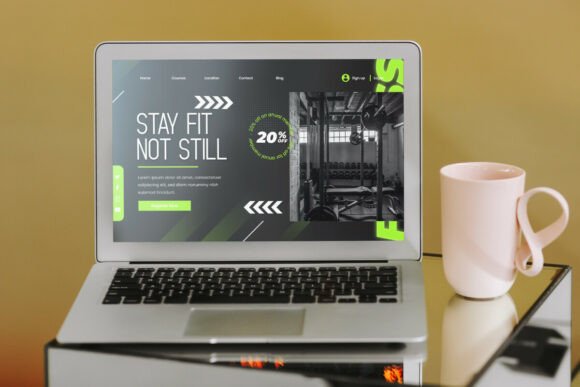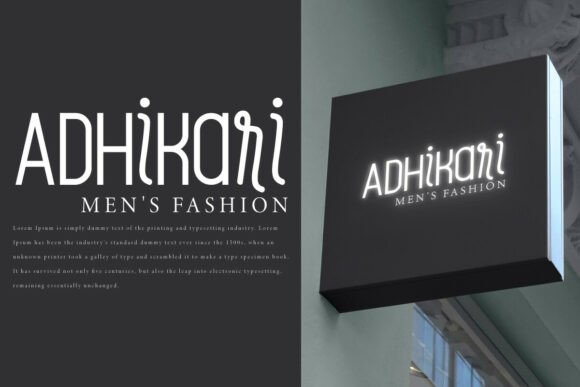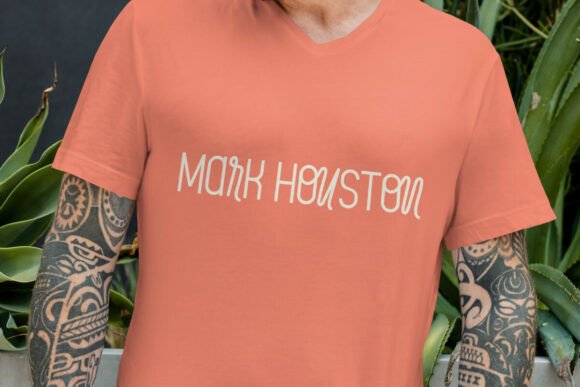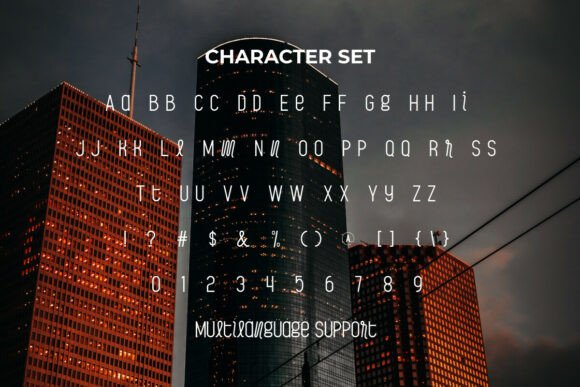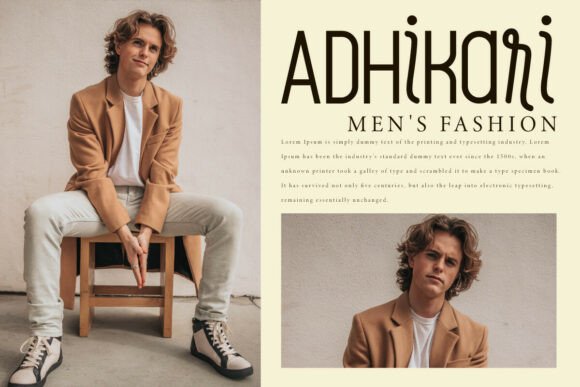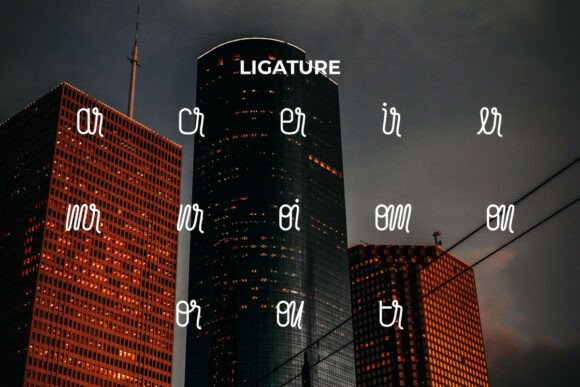
Introduction to Markhouston Font
The moment you need a font that elevates your creative project from ordinary to extraordinary – that’s when the search begins. You’re browsing through countless font options, trying to find the perfect combination of style and versatility. And then, you stumble upon it – Markhouston Font. This stylish duo display font is a game-changer, featuring two distinct styles within one cohesive font family. The clean sans serif and expressive handwritten design blend together seamlessly, adding a unique and modern touch to any project.
Whether you’re working on a brand identity, calendar, or product packaging, Markhouston Font is a valuable asset for designers. Its high-quality design makes it a great fit for various industries, from fashion and advertising to events and accessories. And the best part? It’s fully compatible with popular design software, including Adobe Illustrator, InDesign, and Photoshop.
Key Features of Markhouston Font
- High-quality design resource for creative projects, ideal for digital use.
- Unique characteristics include a modern, clean, and elegant design aesthetic, making it perfect for branding and marketing materials.
- Designed to be highly legible, with clear typography that ensures readability across various digital platforms.
Honest Review: Markhouston Font
As a designer, I’m always on the lookout for high-quality design resources to elevate my creative projects. Recently, I stumbled upon the Markhouston Font, and I’m excited to share my honest review with you.
Here’s what works well:
- ✨ Beautiful, modern design aesthetic that’s perfect for contemporary branding projects.
- ✨ Clean, high-quality font that’s easy to read and install.
- ✨ Transparent background, allowing for seamless integration with any design element.
- ⚠️ Limited font styles and weights, which might not be suitable for all design projects.
- ⚠️ Some users may find the font’s modern aesthetic too trendy or overpowering.
Overall, the Markhouston Font is a solid addition to any designer’s toolkit. Its high-quality design and transparent background make it a great resource for creative projects. While it may not be perfect, its free download option and beautiful aesthetic make it a worthwhile download for designers looking to elevate their work.
Tips for Getting the Most Out of Markhouston Font
To get the most out of the Markhouston Font, try using it in conjunction with a transparent background to create eye-catching graphics and designs. You can also experiment with different font sizes and styles to add visual interest to your designs.
Common Use Cases for Markhouston Font
The Markhouston Font is a versatile design resource that can be used in a variety of creative projects, including logos, graphics, and text overlays. It’s particularly well-suited for use in social media graphics, presentations, and marketing materials.